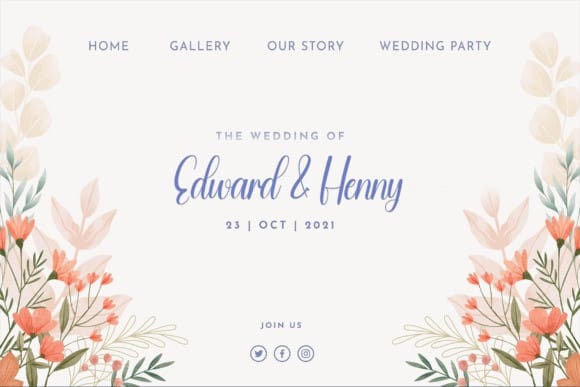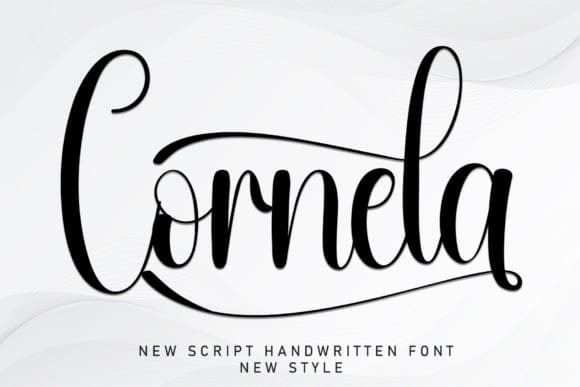
Cornela Script Font
Cornela Script Font is a sweet and friendly handwritten display font. Cute and fun, this font is ideal for writing wedding invitations, cards, or any other design that might need a fun touch!